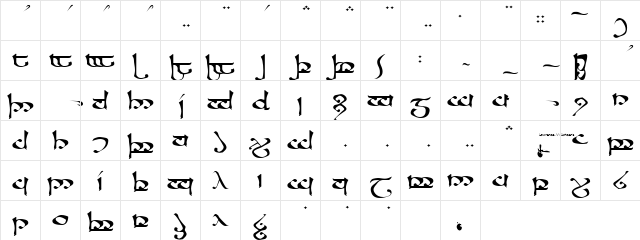
RSMoroma Medium Free Font
RSMoroma Medium
Design Context for RSMoroma
RSMoroma is a composed and adaptable typeface that performs quietly and consistently across a wide range of design contexts.
Pro Tip: Use RSMoroma in both headline and body roles to test its range before committing to a single application.